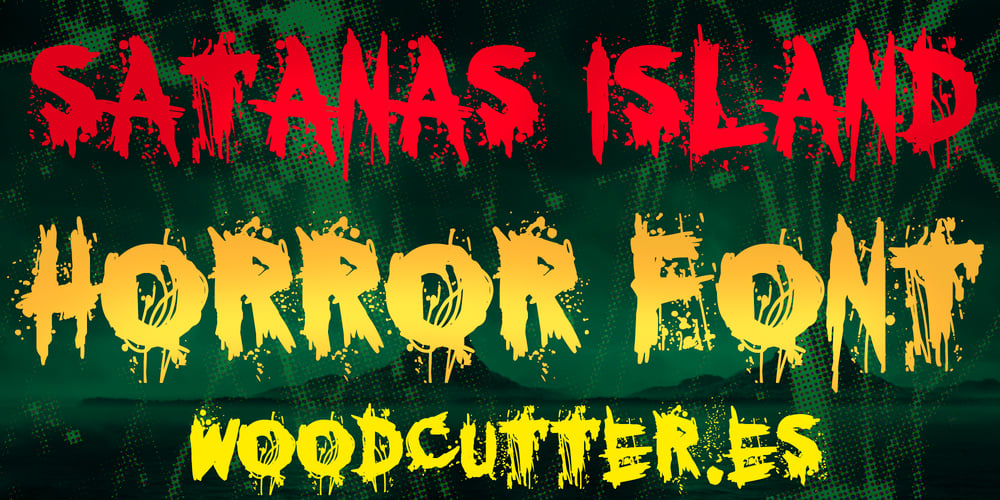
Satanas Island Font Family was designed by Jordi Manero and published by Woodcutter. Satanas Island contains 1 styles and family package options. “Satanas Island” is an uppercase font with a fantasy-horror aesthetic. The letters are irregular and appear shattered, giving them a chaotic and truly terrifying look. With a style reminiscent of horror films and dark worlds, this font is perfect for creating eerie and unsettling atmospheres. Its broken and distorted design adds a sense of tension, making it ideal for horror posters, book covers, or any project aiming to evoke fear and danger, all while bringing a sinister fantasy touch.